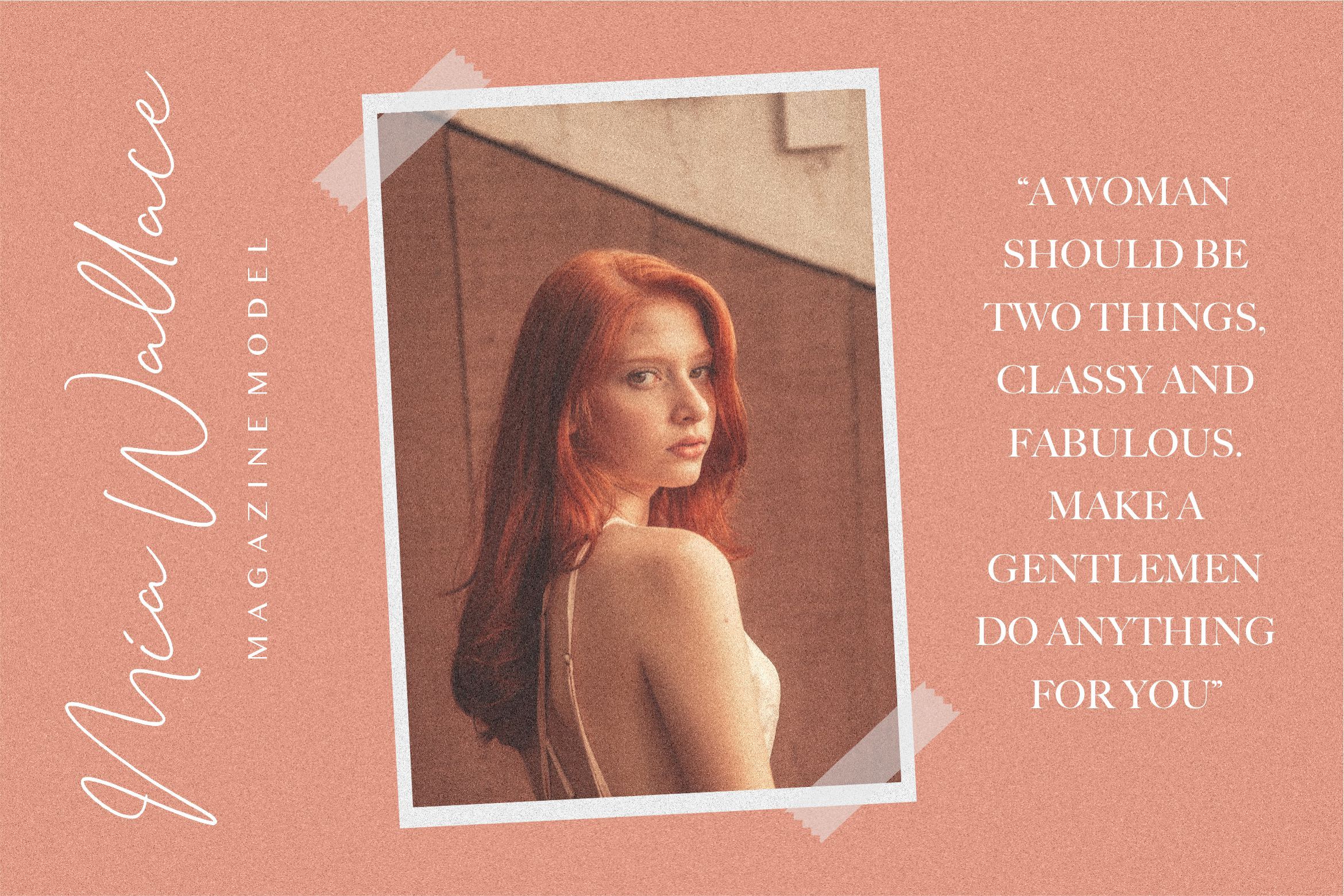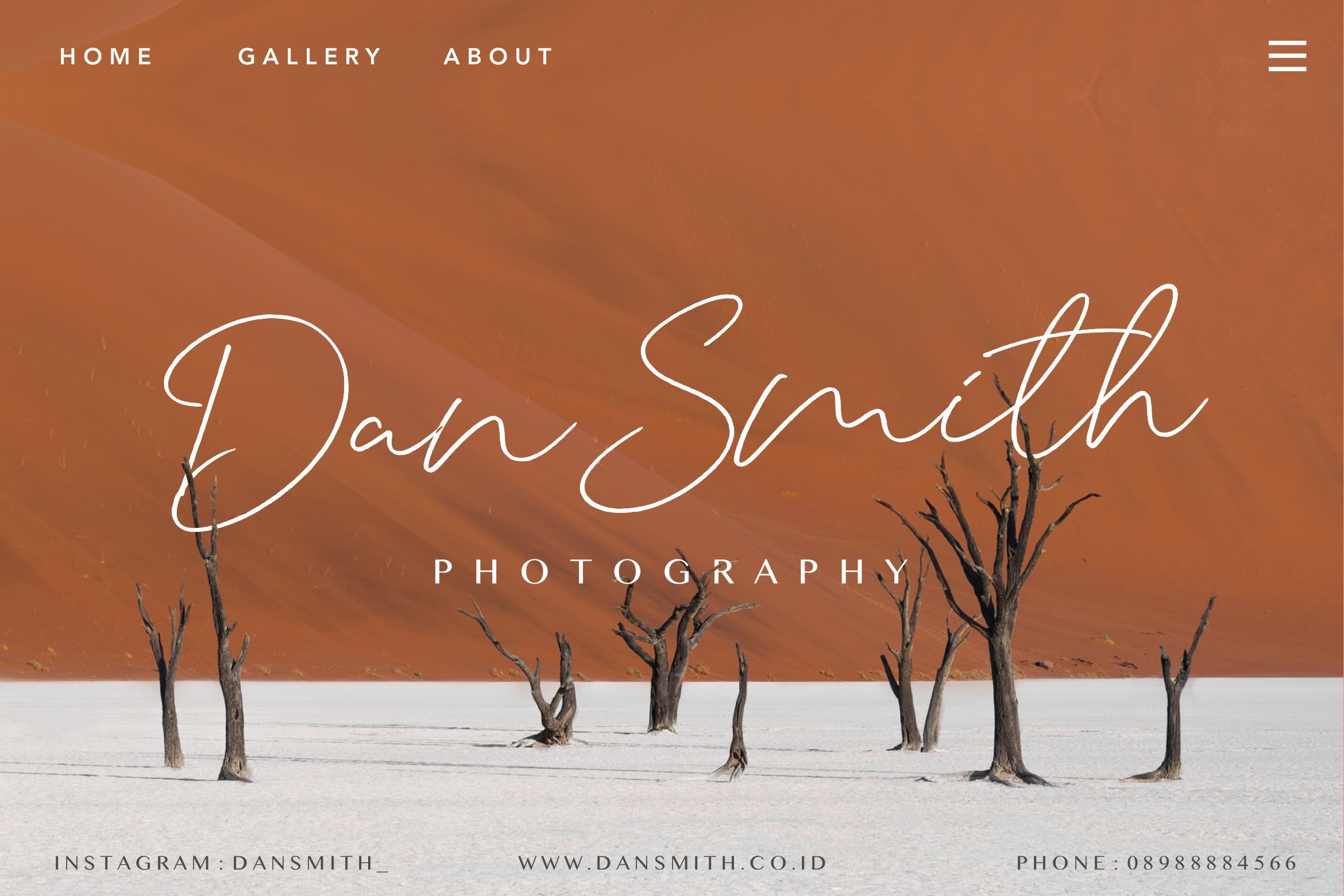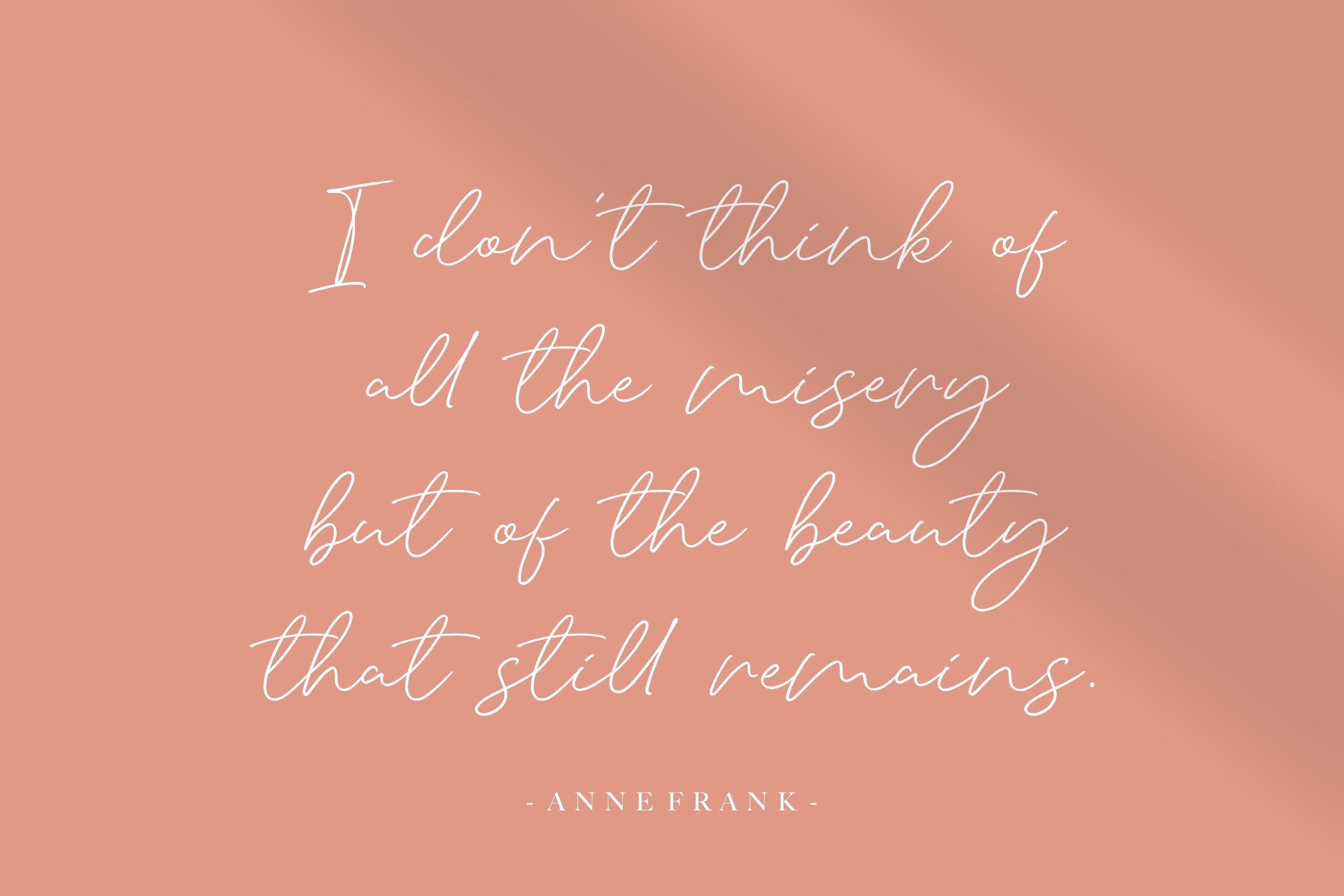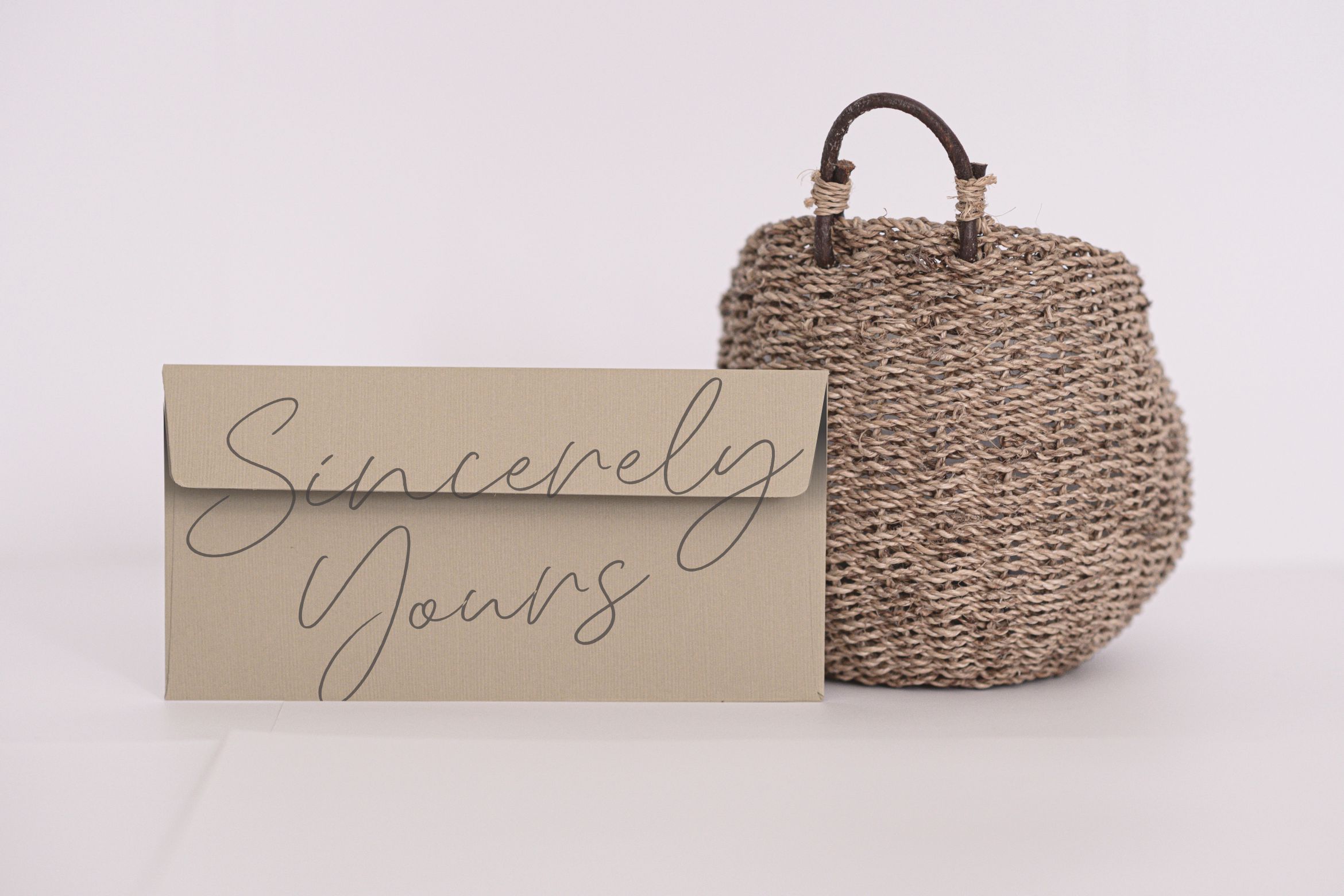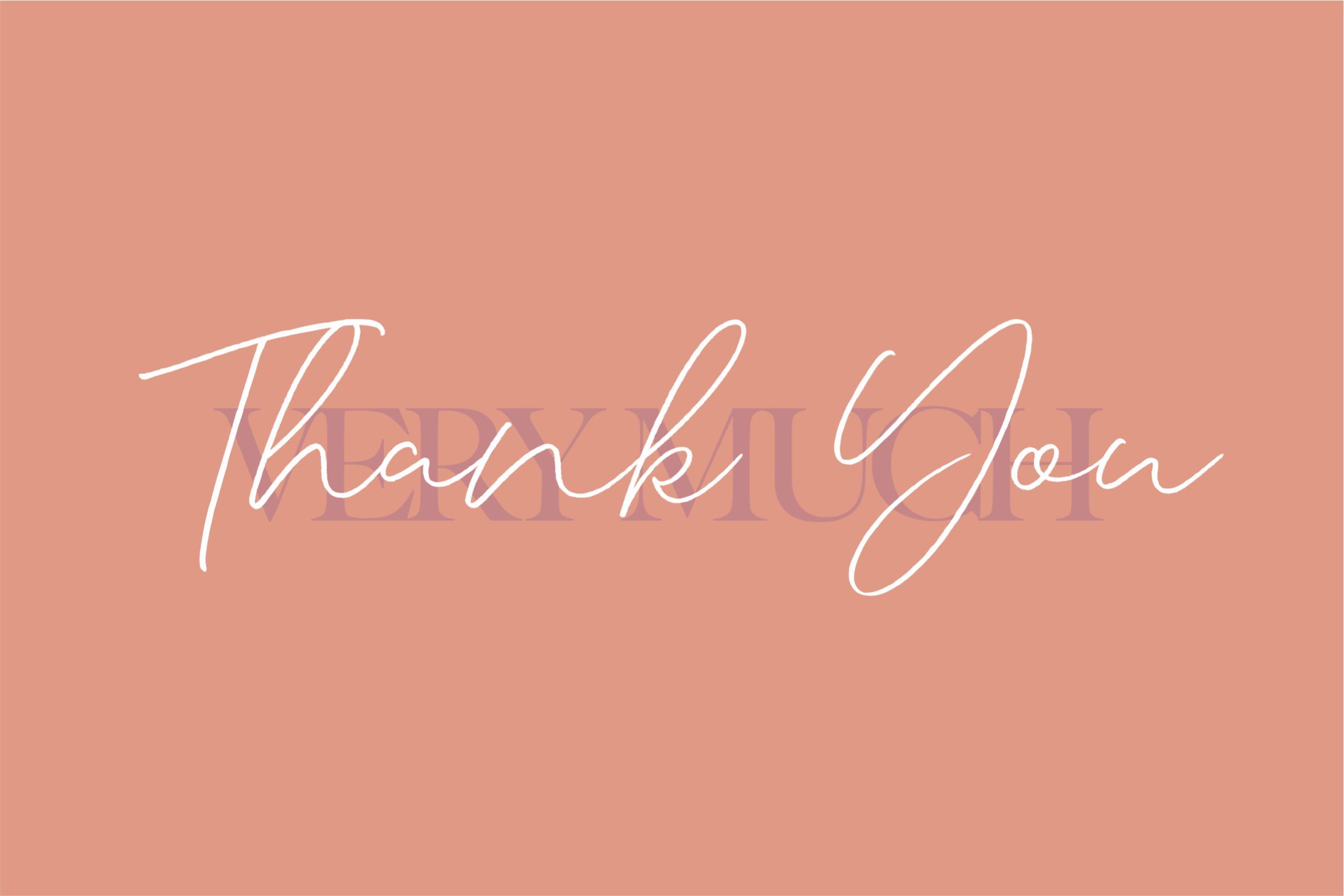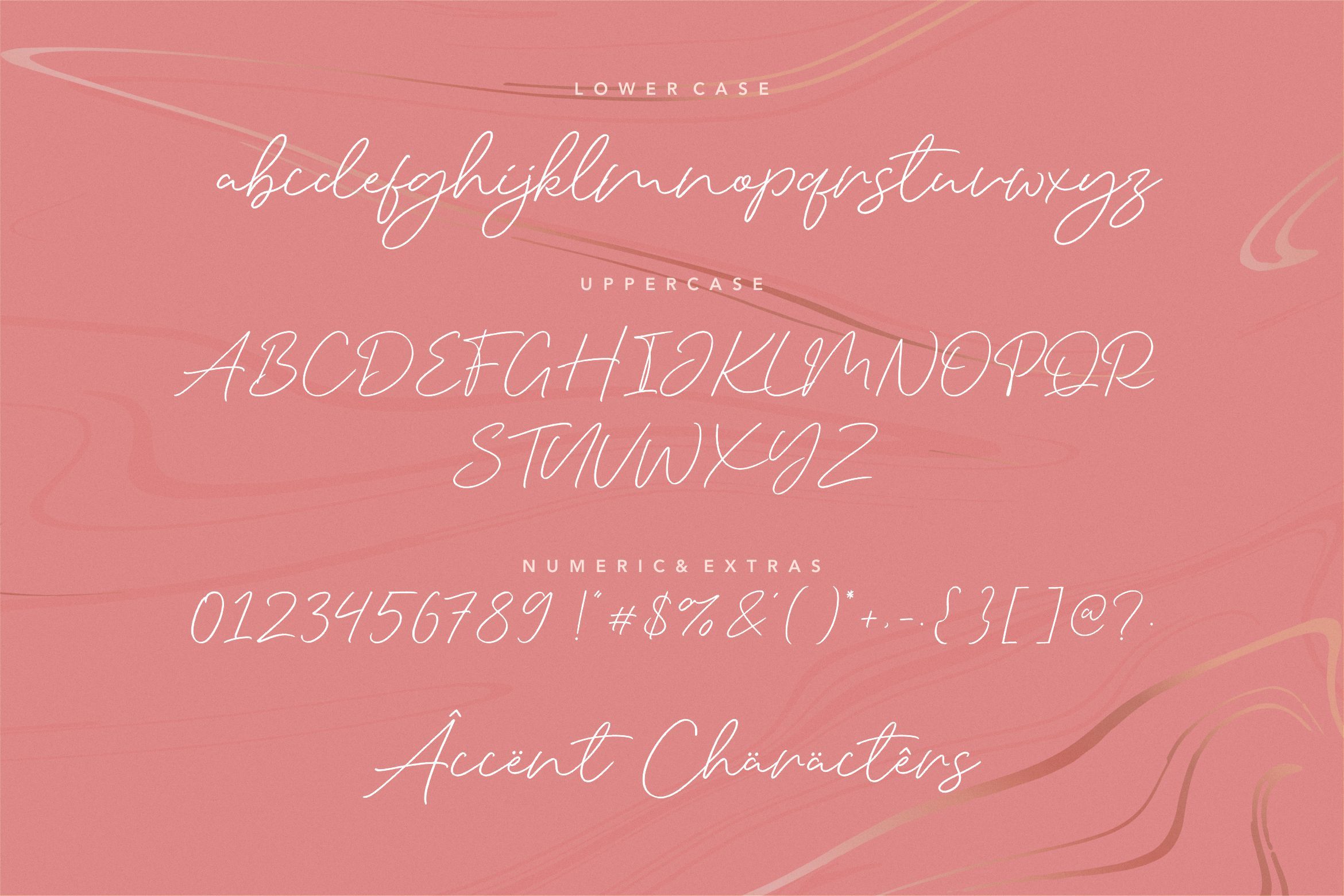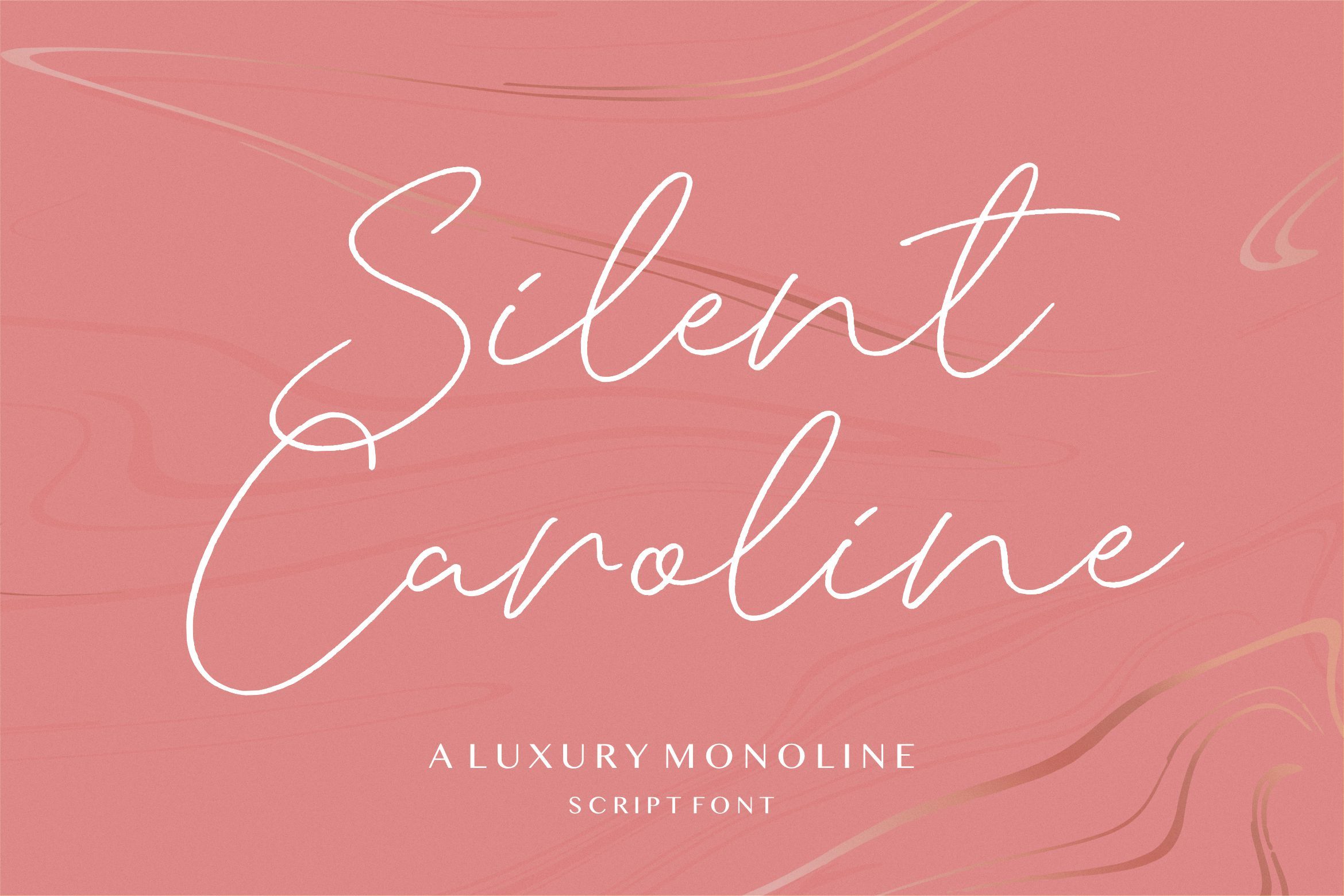
Silent Caroline Luxury Monoline Script Font
About Silent Caroline Luxury Monoline Script Font
Introducing by Letterative Studio : Silent Caroline Font Silent Caroline is a Luxury Monoline Script Font Silent Caroline is a thin and elegant handwritten font. Use it to make your ideas even more realistic and create spectacular designs! This font includes : TTF and OTF Silent Caroline also multilingual support Enjoy the font! Feel free to comment or feedback Send me PM or email Thank you!